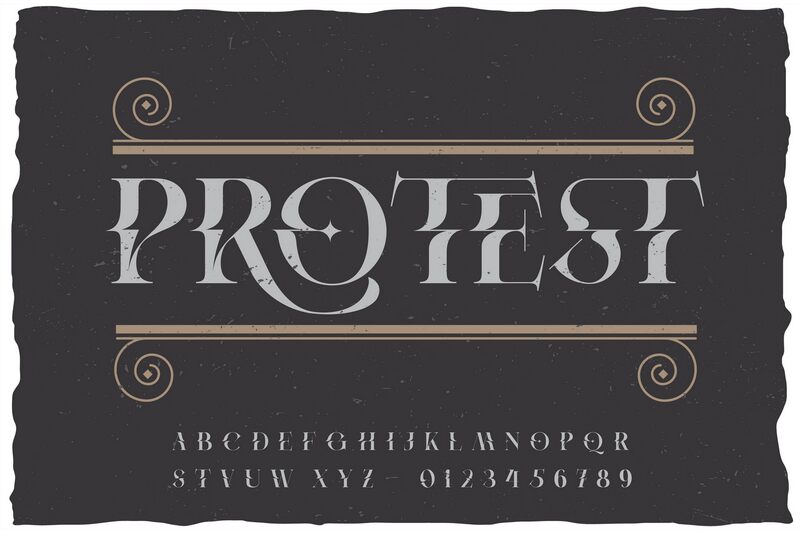
Protest, a striking creation by 177Studio, stands out as a display font with an undeniably unique character. Its distorted style exudes a sense of dynamism and rebellion, making it an excellent choice for projects that aim to leave a lasting impression. The aesthetic appeal of Protest lies in its ability to command attention; the twisted and turned letters suggest movement and unrest, which can effectively convey powerful messages or evoke strong emotions.
This font's bold presence is not just visually impactful but also versatile in its application. Whether it's for eye-catching headlines, standout posters, or artistic branding initiatives, Protest is poised to infuse your creative endeavors with an edgy and contemporary flair. Its distinctiveness ensures that any text set in this typeface will be anything but ordinary, making it a go-to resource for designers looking to push boundaries and craft truly memorable work.